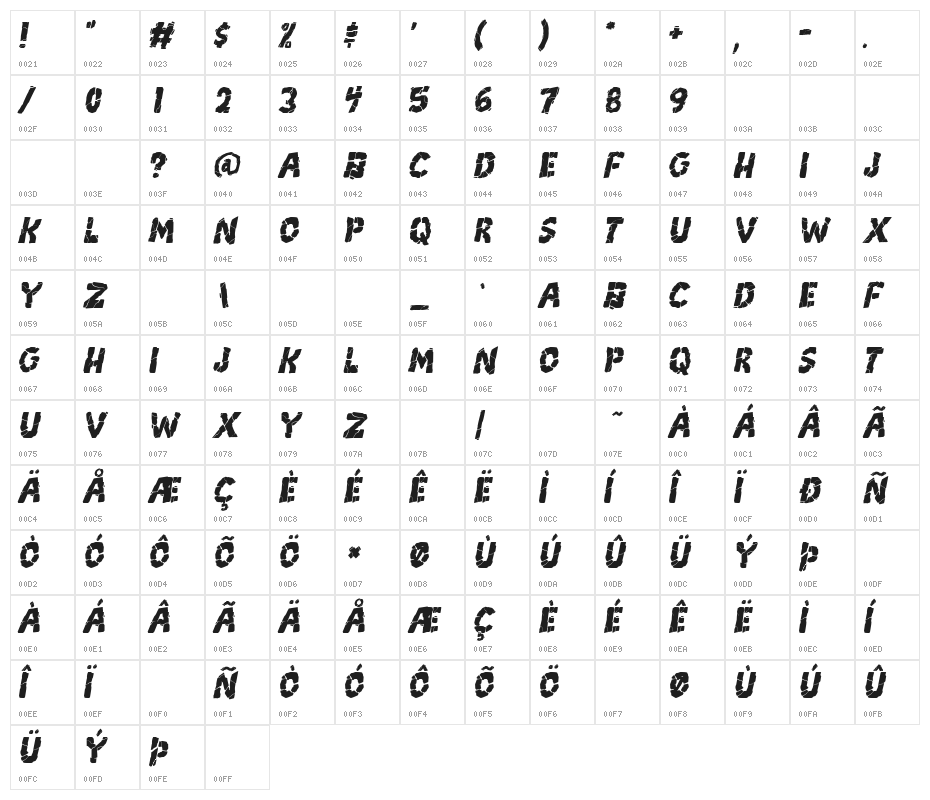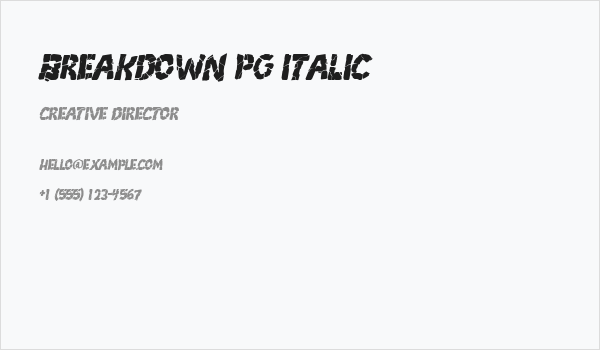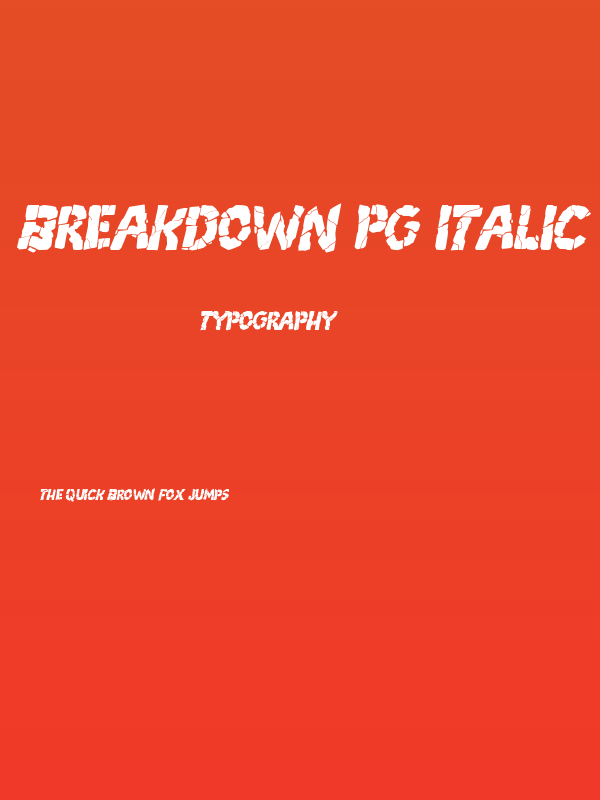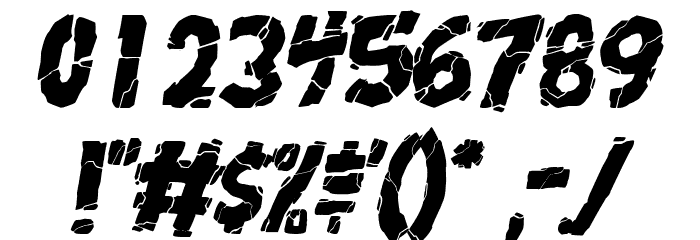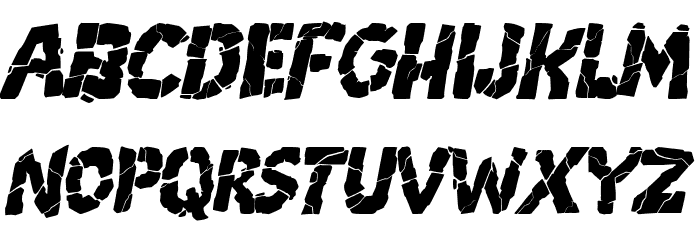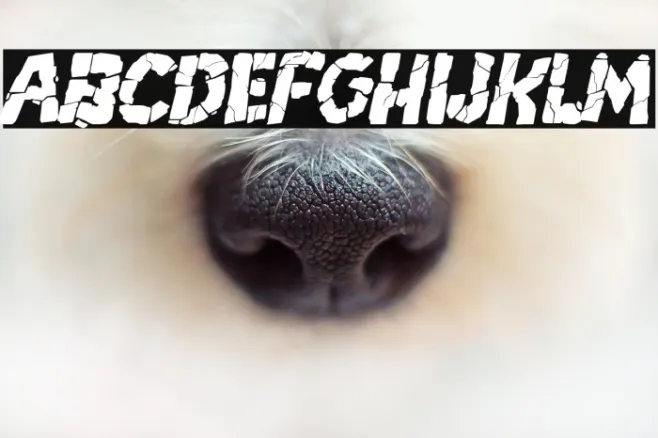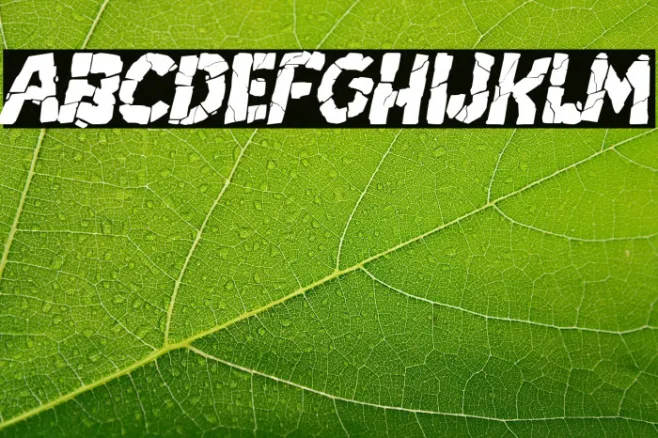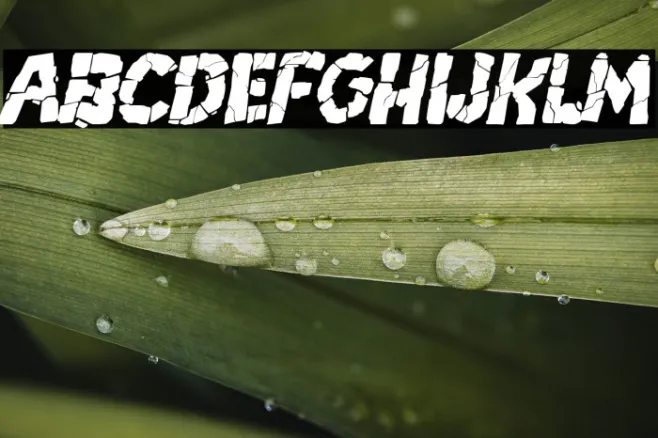
Breakdown PG Italic Font
Breakdown PG Italic Description
A bold, italic, decorative font with a fragmented, cracked appearance, giving a distressed and edgy look.
| Overall Style | Edgy, Distressed |
| Proposed Projects | Posters, album covers, edgy branding. |